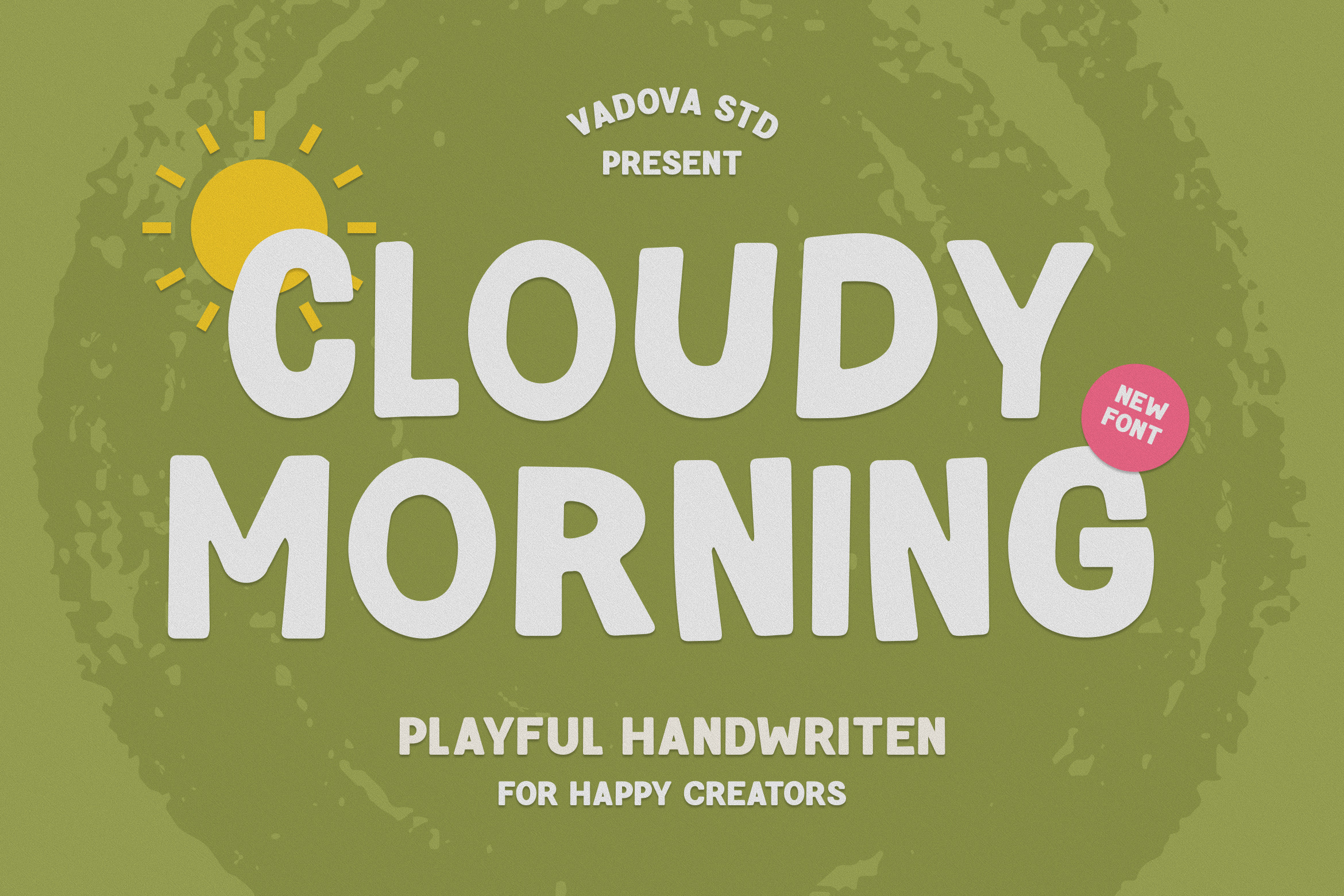
Cloudy Morning Handwritten Font
Cloudy Morning is a cheerful and energetic handwritten display typeface designed to spark joy and creativity in your visual projects. Featuring rounded strokes, whimsical forms, and a friendly presence, this font brings a warm, hand‑crafted vibe to any design. Included are full uppercase and lowercase alphabets, numerals, punctuation, and basic multilingual support.
Cloudy Morning is perfect for designers and creatives who want to infuse a joyful, casual tone into projects. It excels in children’s content, party invitations, greeting cards, posters, social media graphics, playful branding, merchandise design, and educational materials. With its friendly shapes and bold presence, this typeface enhances projects that call for a positive, approachable aesthetic.
- Bold handwritten style with rounded, approachable strokes
- Whimsical character forms that evoke fun and friendliness
- Balanced spacing and clean legibility across sizes
- All-caps and lowercase letters for playful variation
- Fun social media posts and cheerful quote graphics
- Greeting cards, birthday invites, and party printables
- Whimsical blog headers and friendly digital content
- Classroom posters, educational worksheets
- Branding and playful packaging design
Brighten your designs with Cloudy Morning font that brings warmth, joy